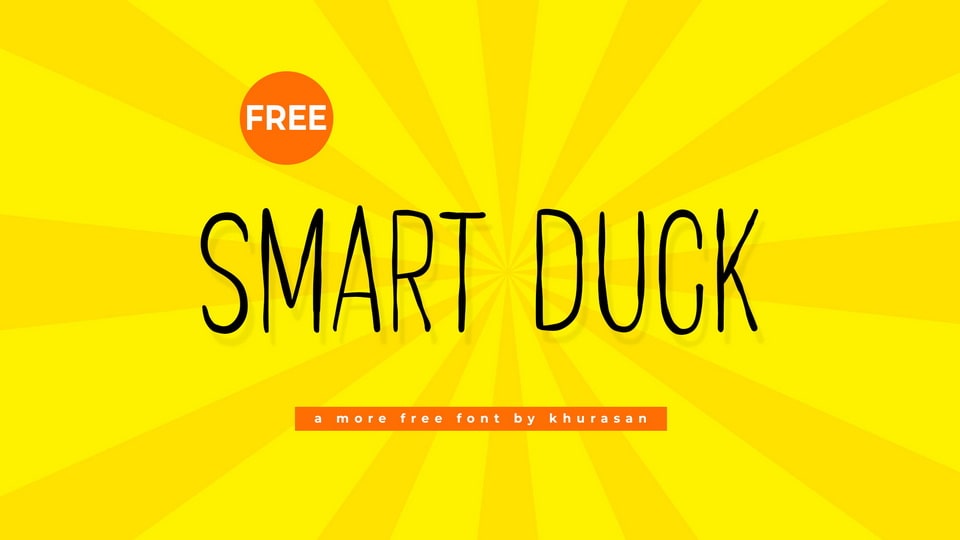
Download Smart Duck font, a tall and skinny hand-drawn typeface with a delightfully playful personality, perfect for designs that call for charm and character.